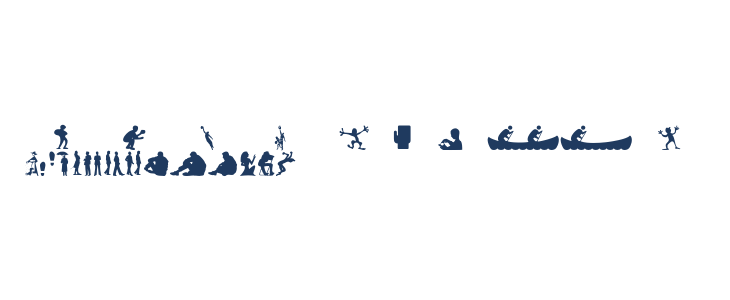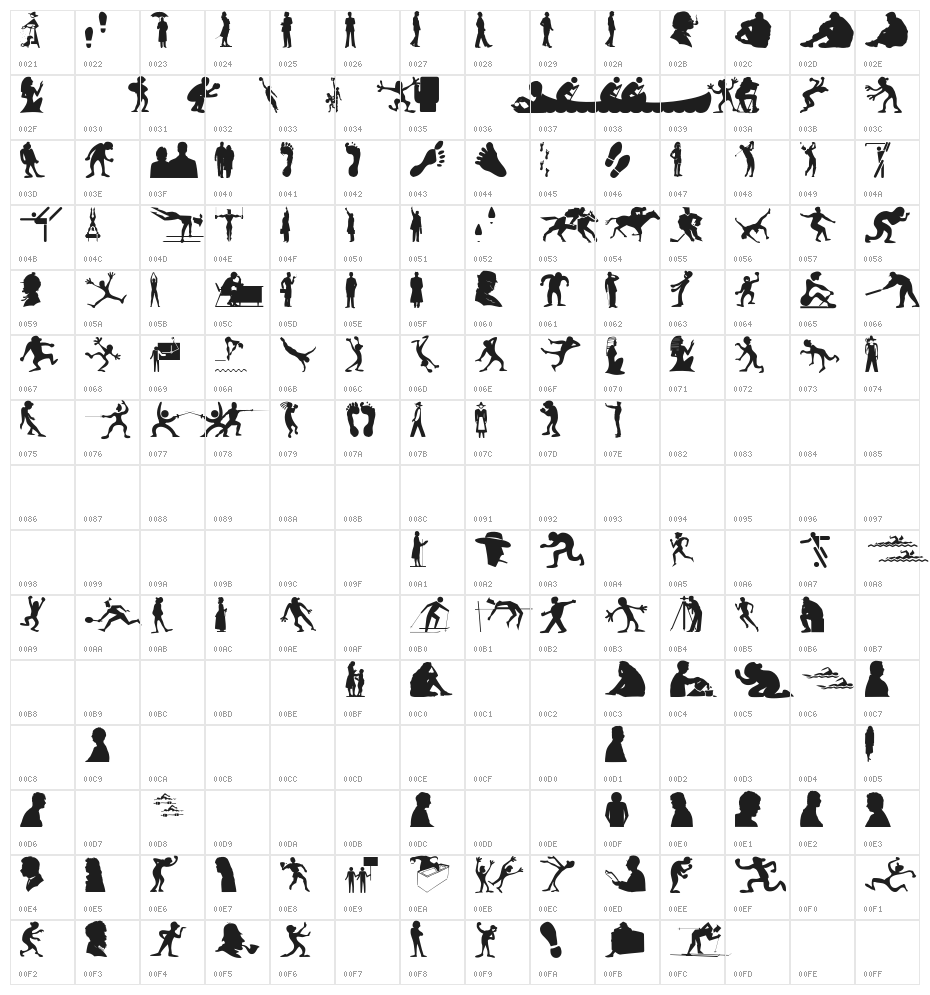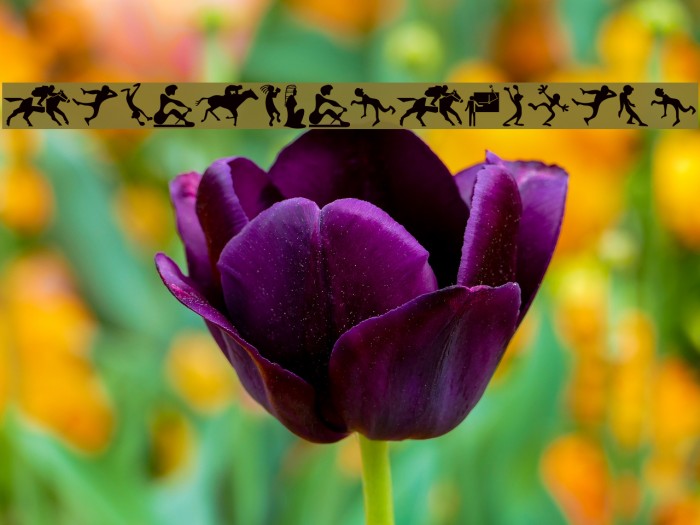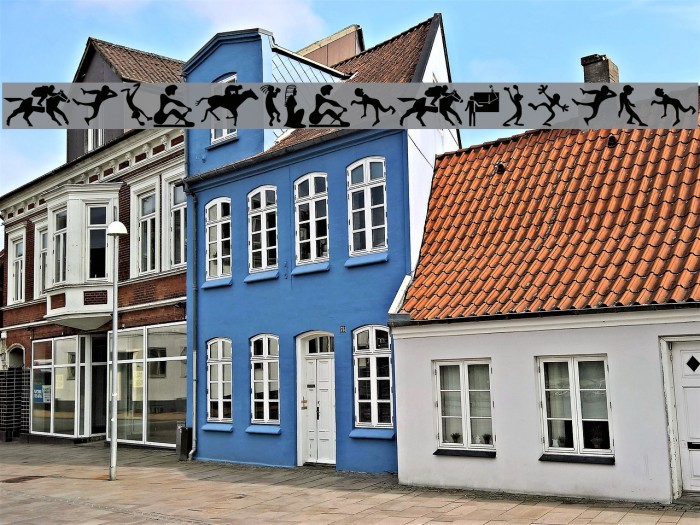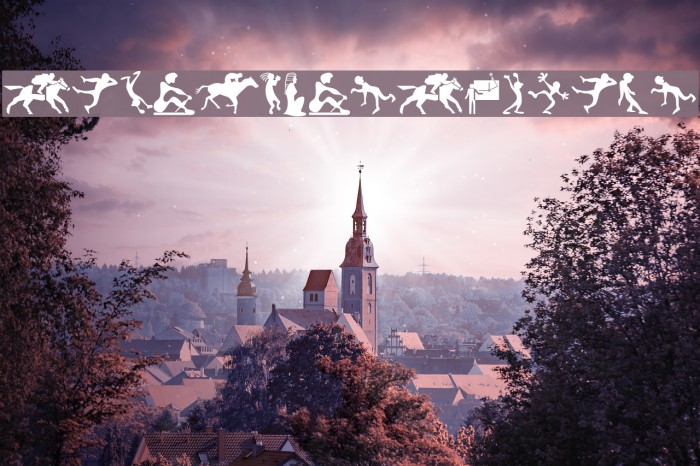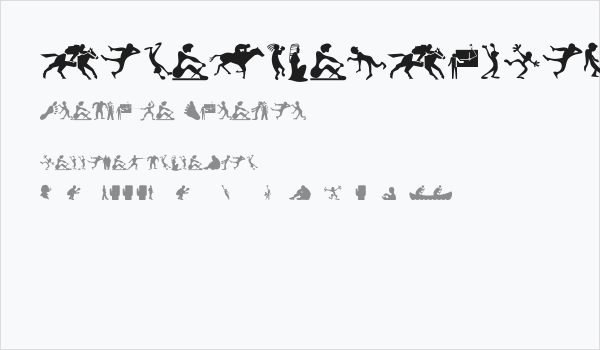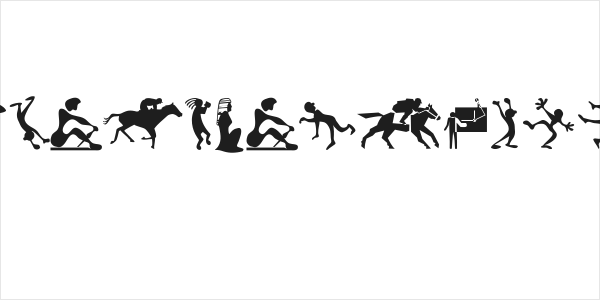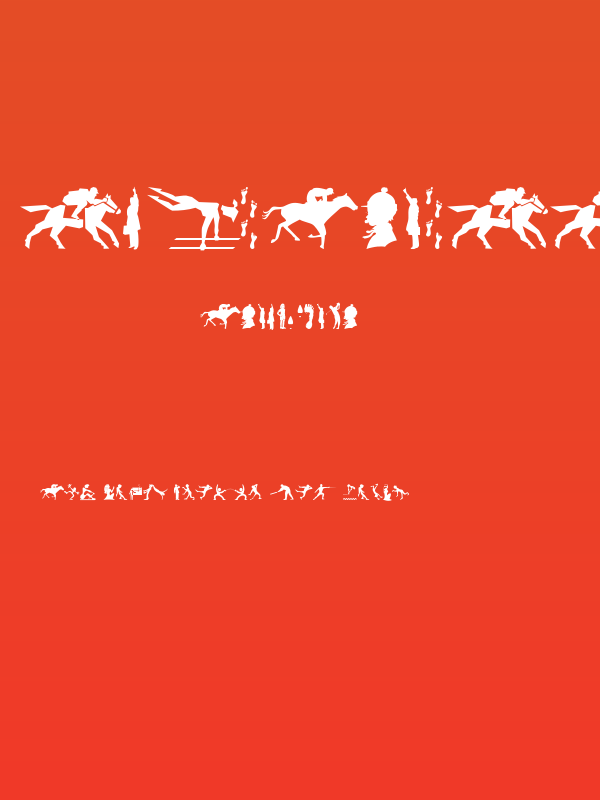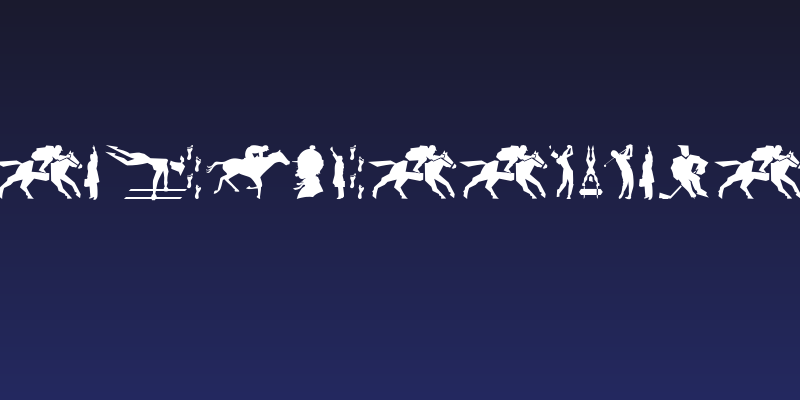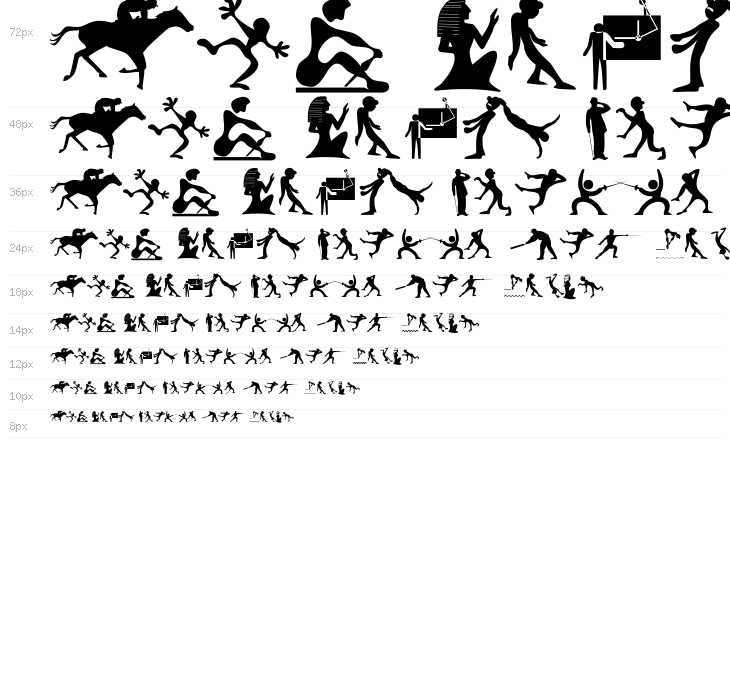
SomeTypesSilhous Font
SomeTypesSilhous Description
A pictogram-style dingbat font featuring solid black silhouettes of human figures, footprints, and various activities such as sports, dancing, sitting, and walking. Each character is represented by a unique silhouette, making it highly illustrative and decorative rather than typographic.
| Overall Style | Decorative, Playful, Modern |
| Use Case | Icons, Illustrations, Visual accents, Thematic graphics |
| Proposed Projects | Infographics, educational materials, signage, posters, playful branding, visual storytelling. |